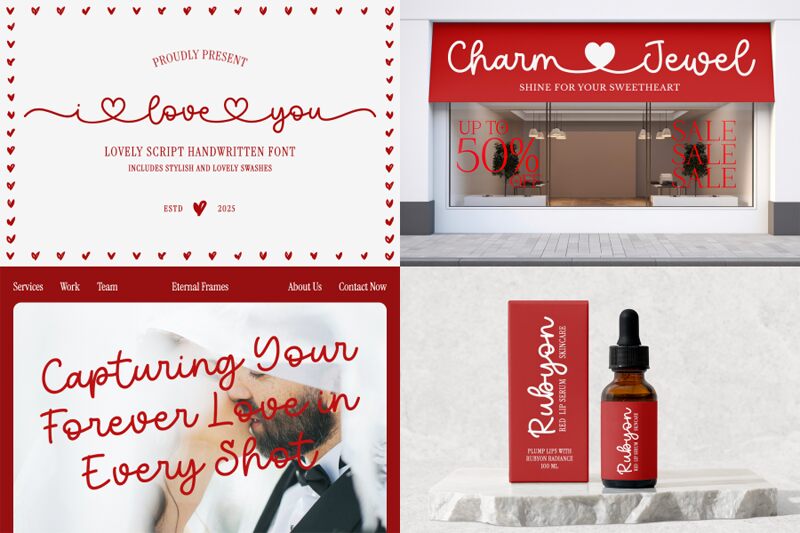
iloveyou
iloveyou font by Mozatype is a free holiday script font that feels like a handwritten love note, inked in one smooth, confident stroke. Its rounded loops, steady rhythm, and gentle curves give every word a warm, romantic pull—casual enough to feel personal, polished enough to hold a layout together. The letters connect in a flowing line, creating a ribbon-like texture that looks especially charming at larger sizes where every curve can breathe.
Using iloveyou, this free font shines on Valentine cards, wedding stationery, save-the-date graphics, love-themed social posts, gift tags, and boutique branding for florists or chocolatiers. It brings a soft, affectionate energy to quotes and headlines, especially when paired with a clean sans serif for supporting text. Try it in generous spacing and a deep red or blush palette to let its romantic script lines really sing.